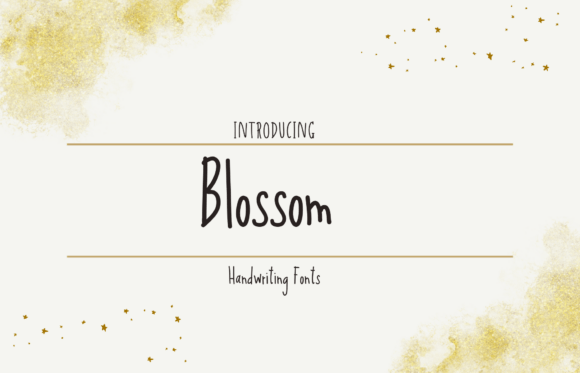
When Words Bloom: Introducing the Blossom Font
Do you remember the joy of creating handmade cards for your loved ones as a child? The excitement of picking out colorful markers and watching your artwork come to life? For many of us, those moments sparked a lifelong passion for creativity and self-expression. As adults, we still crave that same sense of joy and whimsy in our designs, which is where the Blossom Font comes in.
This sweet and friendly handwritten display font is the perfect addition to any designer’s toolkit. Whether you’re crafting wedding invitations, creating digital designs, or developing comic book style graphics, the Blossom Font adds a touch of fun and personality to your work. Its versatility makes it an invaluable asset for designers looking to add a playful twist to their projects.
Blossom Font Key Features
- Font Family: Blossom is a unique, hand-drawn font designed for various applications.
- Size: The font family includes various weights and styles, ranging from 100 to 900, with corresponding italic and bold variations.
- Resolution: Optimized for high-resolution displays, Blossom font is suitable for use in digital and print media.
- Unique Characteristics: This font features elegant, flowing lines and subtle textures, making it perfect for creative and artistic projects.
Blossom Font Review
At first glance, the Blossom font seems like a charming addition to any design project. Its delicate petals and whimsical feel evoke a sense of springtime and new beginnings ✨. The font’s versatility allows it to work well in a variety of contexts, from greeting cards to branding materials. Its playfulness also lends itself well to digital and print applications.
The Blossom font is available in several styles and weights, giving designers plenty of options to choose from. Its open-source nature means that it’s free to use and distribute, which is a major plus ✨. The font also includes a range of languages, making it suitable for global projects.
- ⚠️ Lack of legibility at small sizes: While the font looks lovely at larger sizes, it can become difficult to read when scaled down.
- ⚠️ Not suitable for formal contexts: The Blossom font’s playful nature makes it better suited for casual or creative projects. It may not be the best choice for formal or professional materials.
Overall, the Blossom font is a delightful addition to any designer’s toolkit. Its charm and versatility make it a great choice for a wide range of projects. However, its limitations should be taken into consideration when deciding whether to use it.
Blossom Font Practical Application Guide
The Blossom font is ideal for:
- Editorial and publishing projects
- Gift tags and packaging design
Tips for Getting the Most Out of the Blossom Font
Use the Blossom font sparingly to avoid overwhelming the design. Pair it with clean and simple backgrounds to let the font take center stage. Experiment with different font sizes and colors to create visual interest.
Alternatives to Blossom Font
Lobster Font is a casual, cursive font that is perfect for adding a touch of elegance to designs. It’s ideal for use in headings, titles, and logos. When to use: Wedding invitations, branding, and stationery.
Compared to Blossom Font, Lobster Font has a more playful and whimsical feel. While Blossom Font is more delicate and refined, Lobster Font is bolder and more expressive.
Great Vibes Font is a modern, elegant script font that is perfect for adding a touch of sophistication to designs. It’s ideal for use in headings, titles, and branding. When to use: Luxury brands, high-end products, and fashion designs.